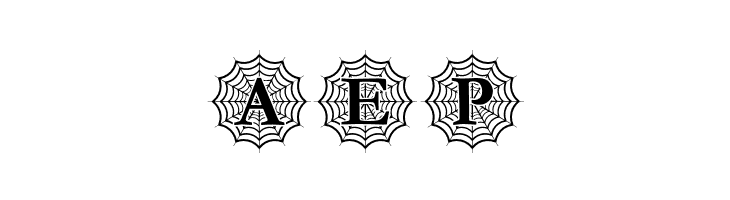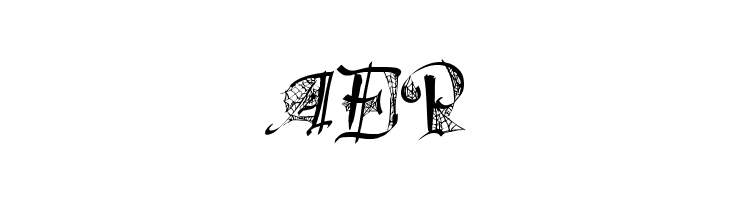
A decorative font with characters encased in spider web designs, ideal for themed projects.
A bold, italic font with a decorative spiderweb pattern.
A bold, decorative font with unique and artistic letterforms.
A bold, spiky, and playful font with a textured appearance.
A bold, spiky, and playful decorative font with a unique textured appearance.
Bold, angular font with a distressed texture and geometric influence.
A bold, spiky font with a dynamic and edgy appearance.